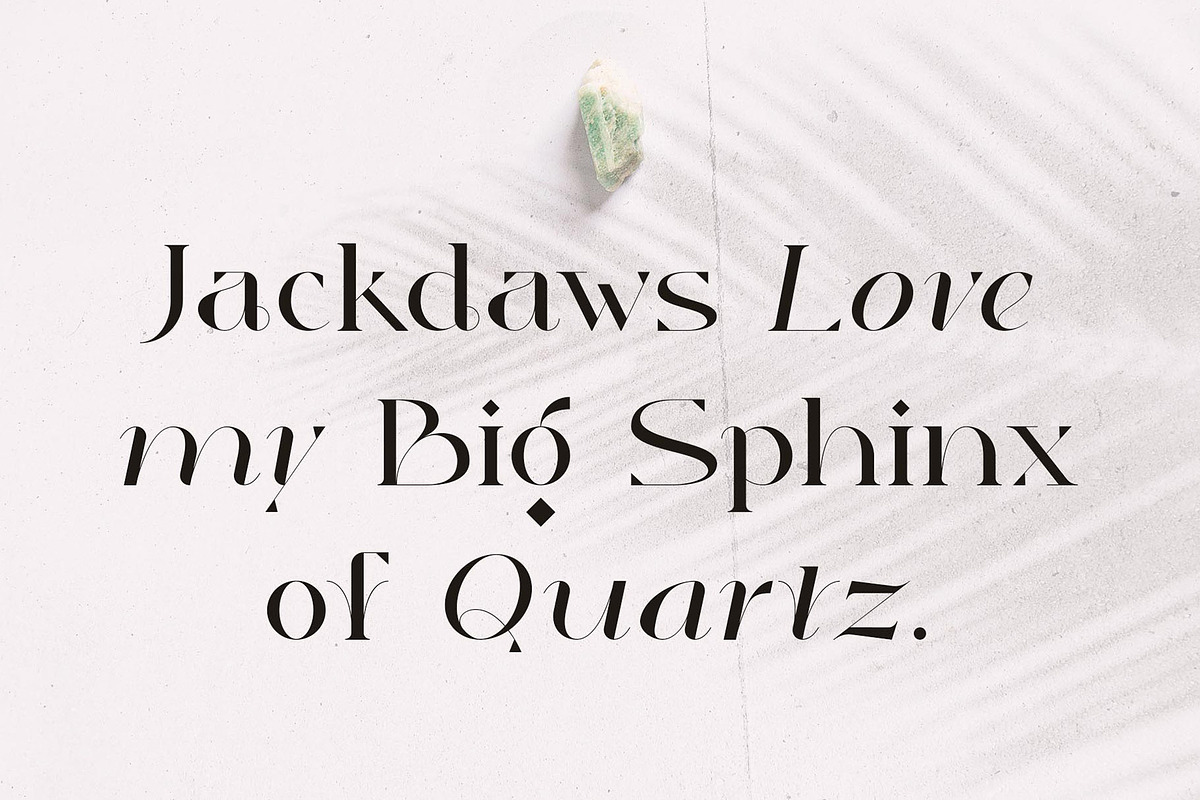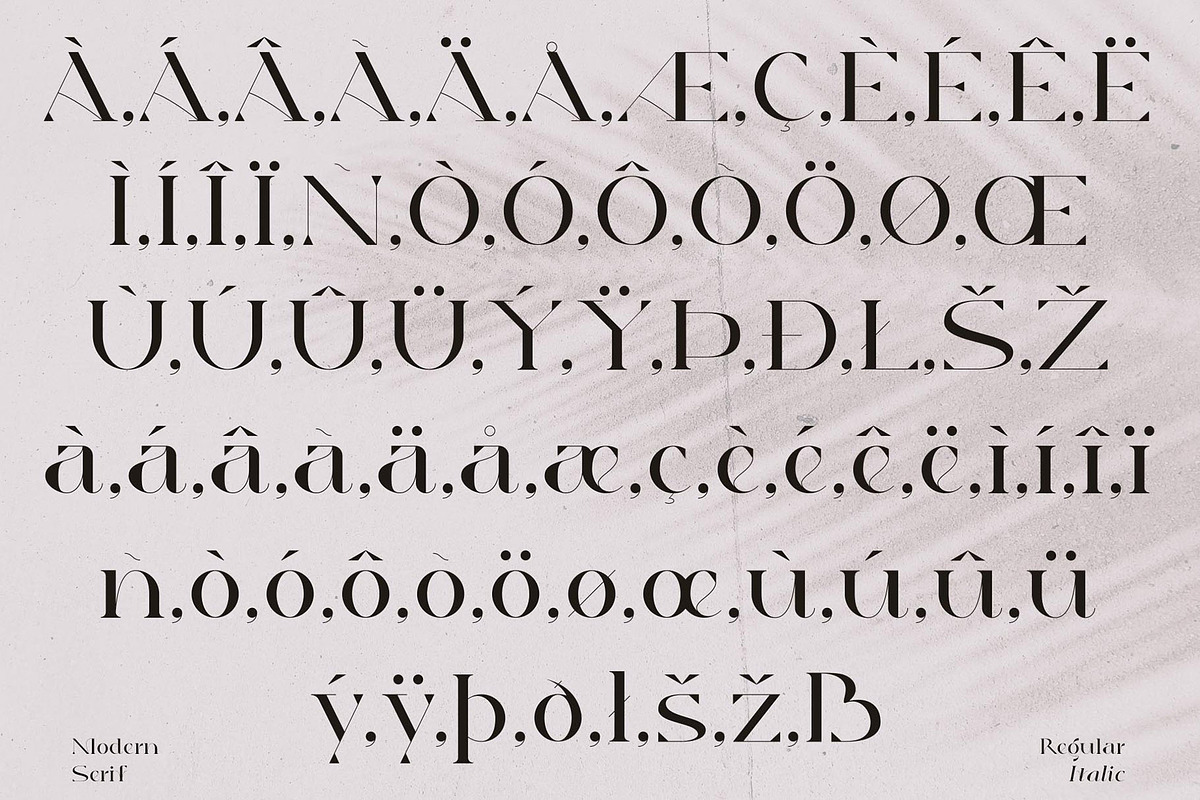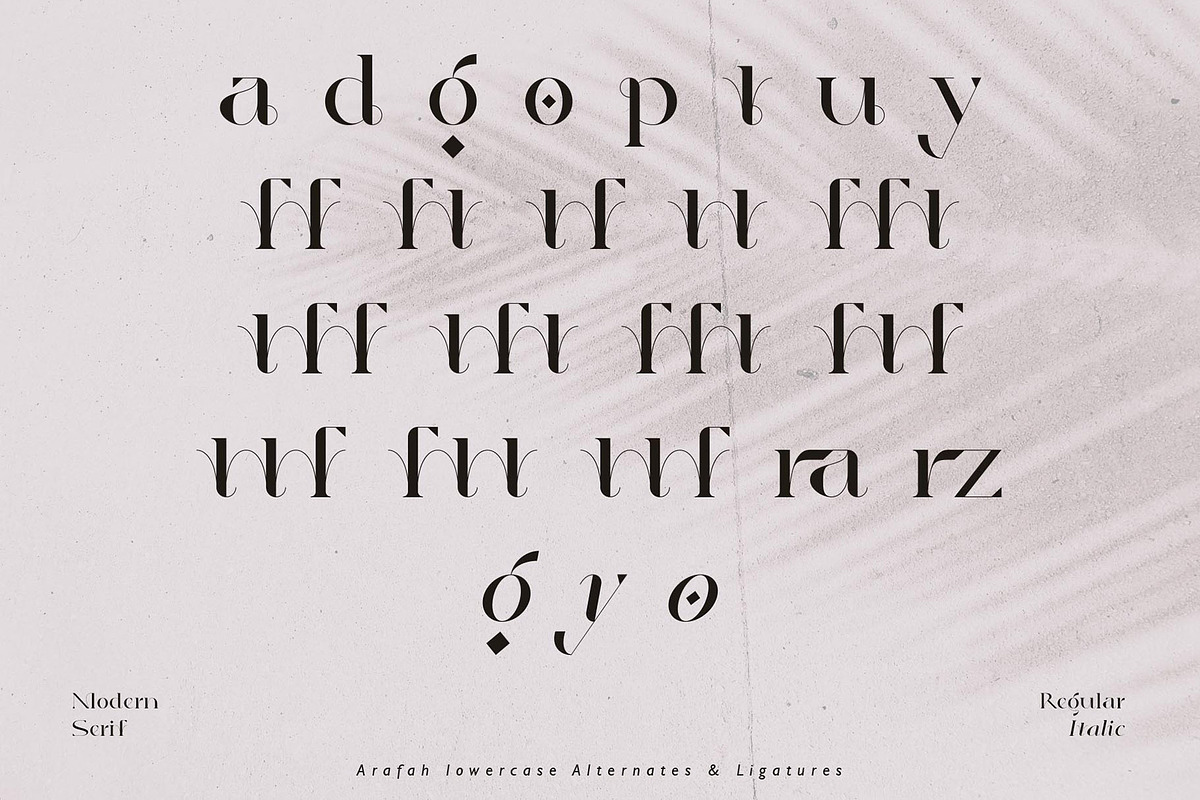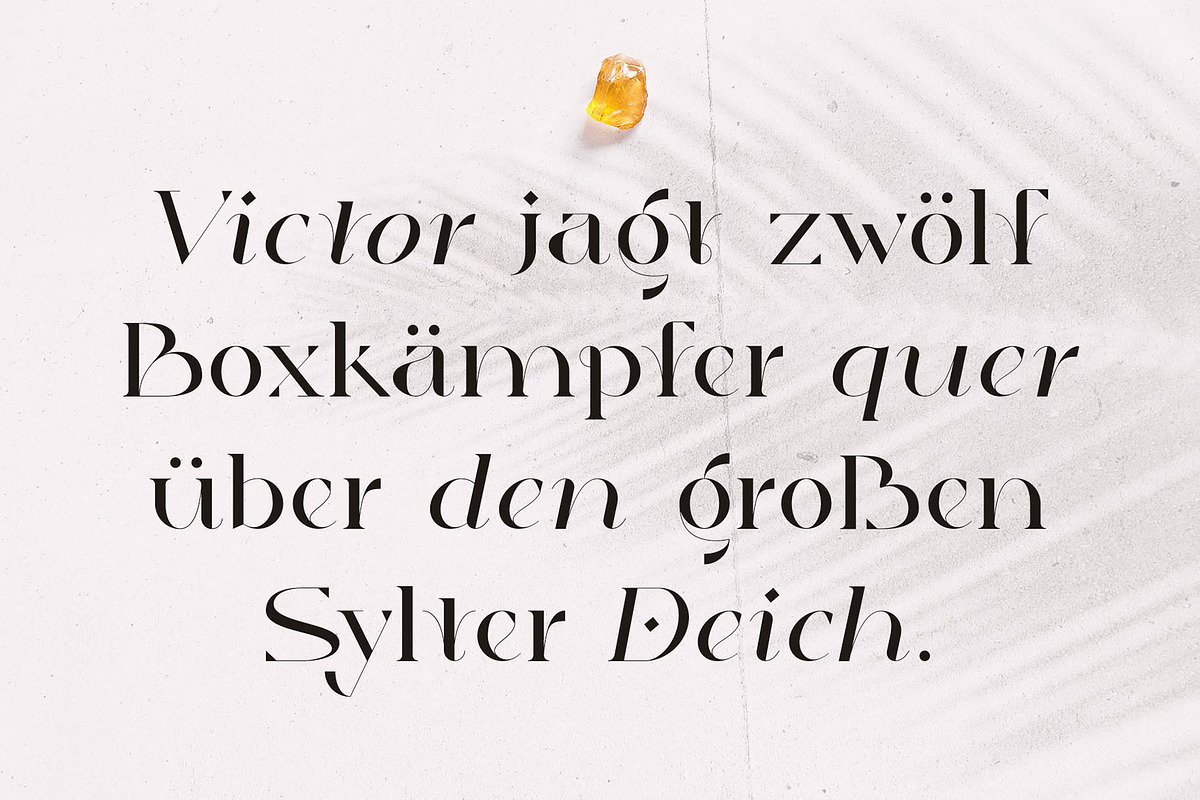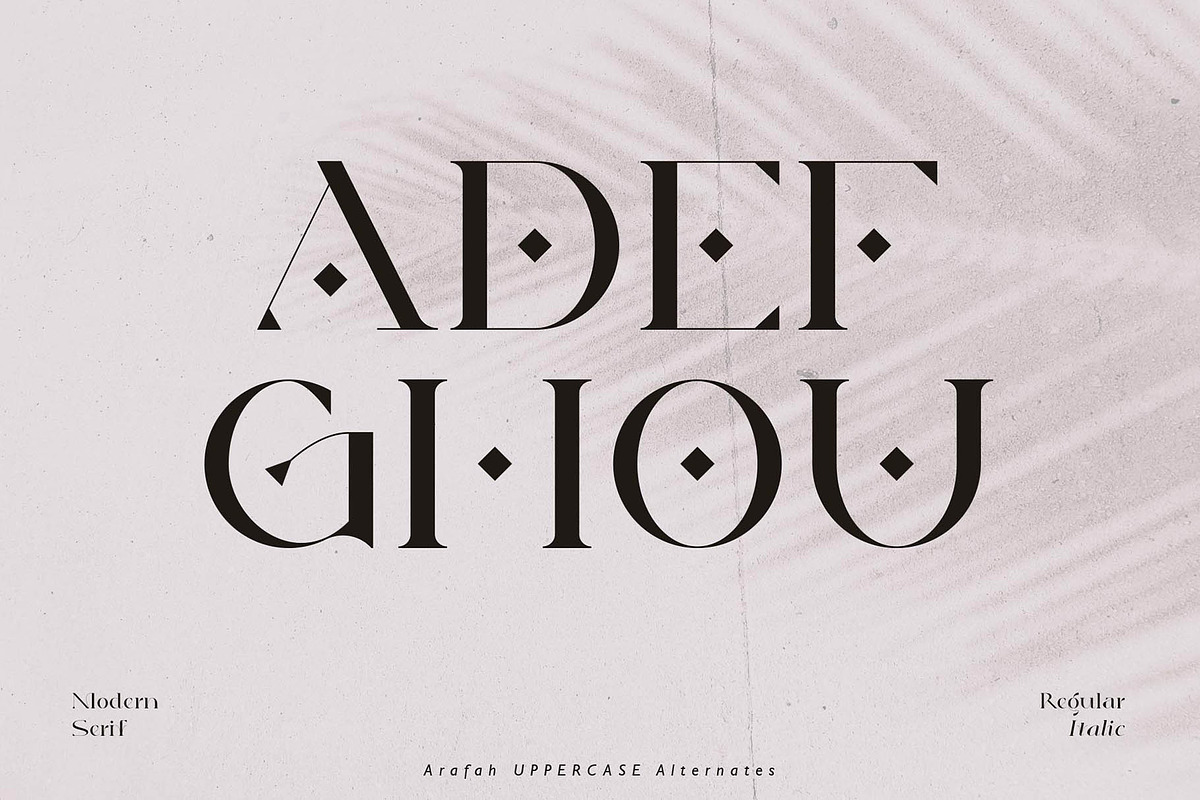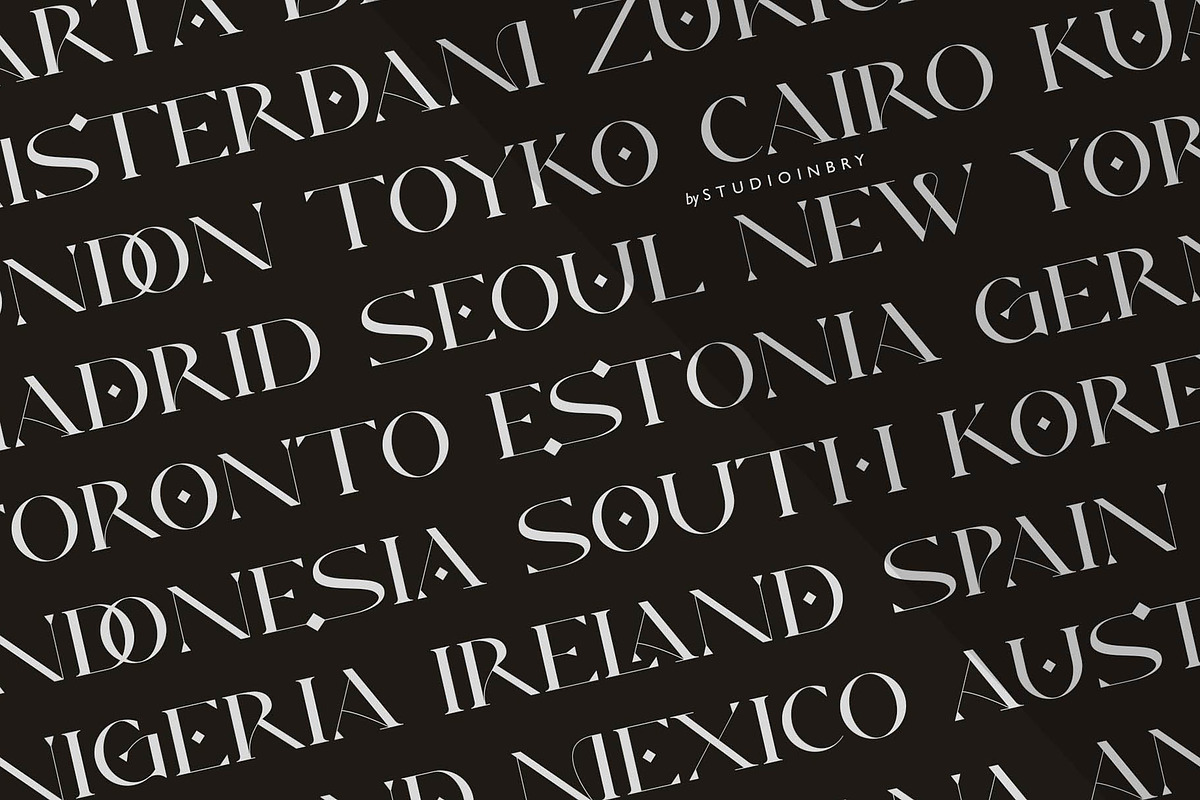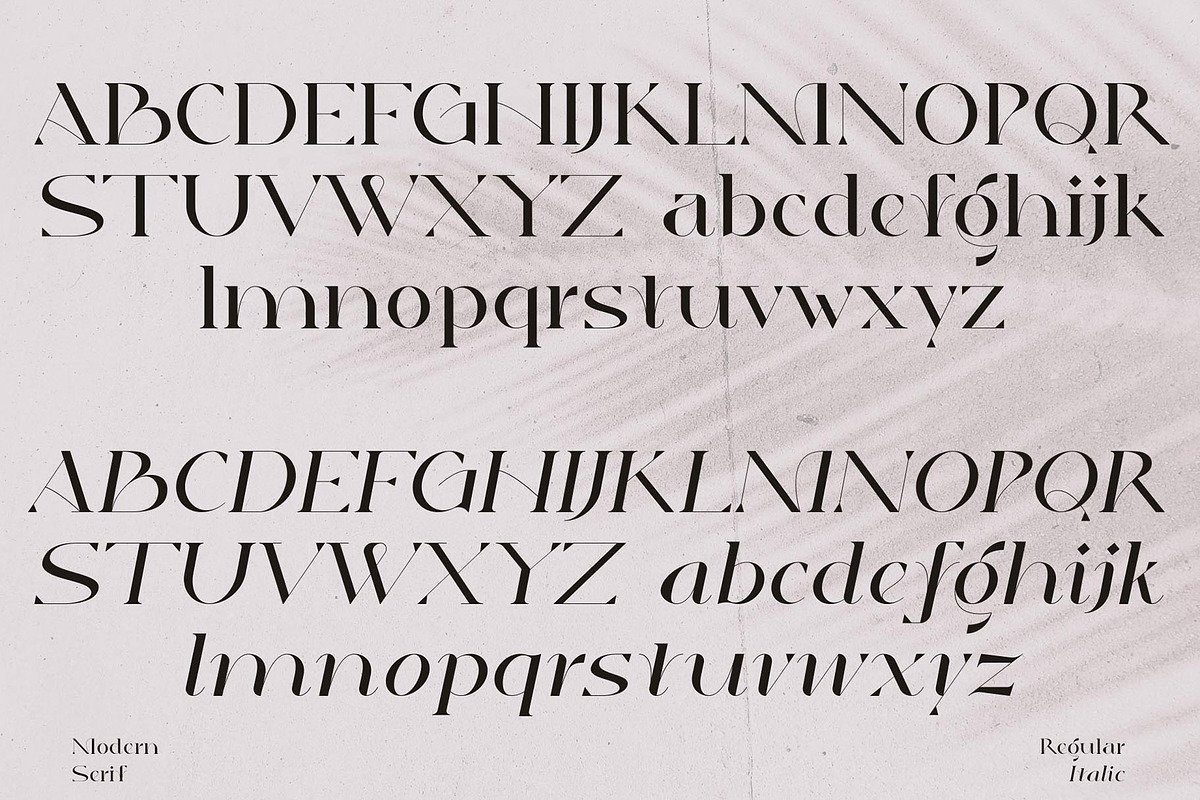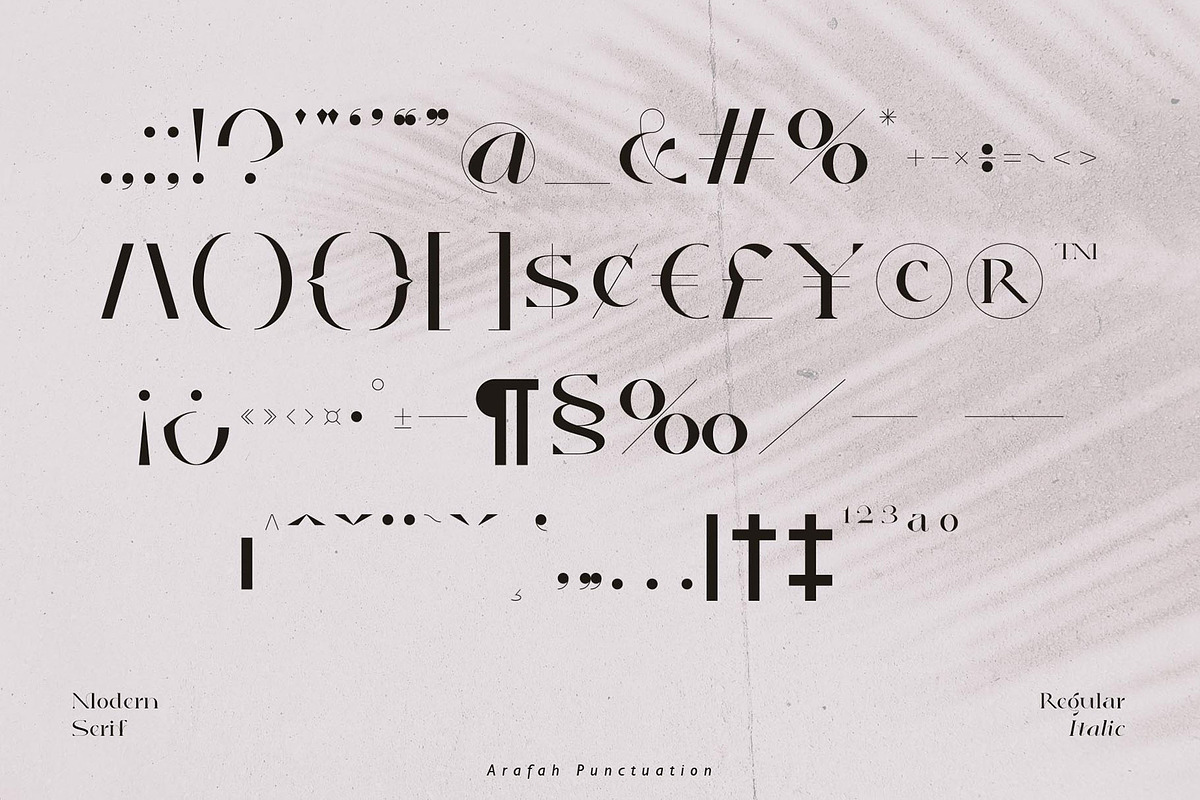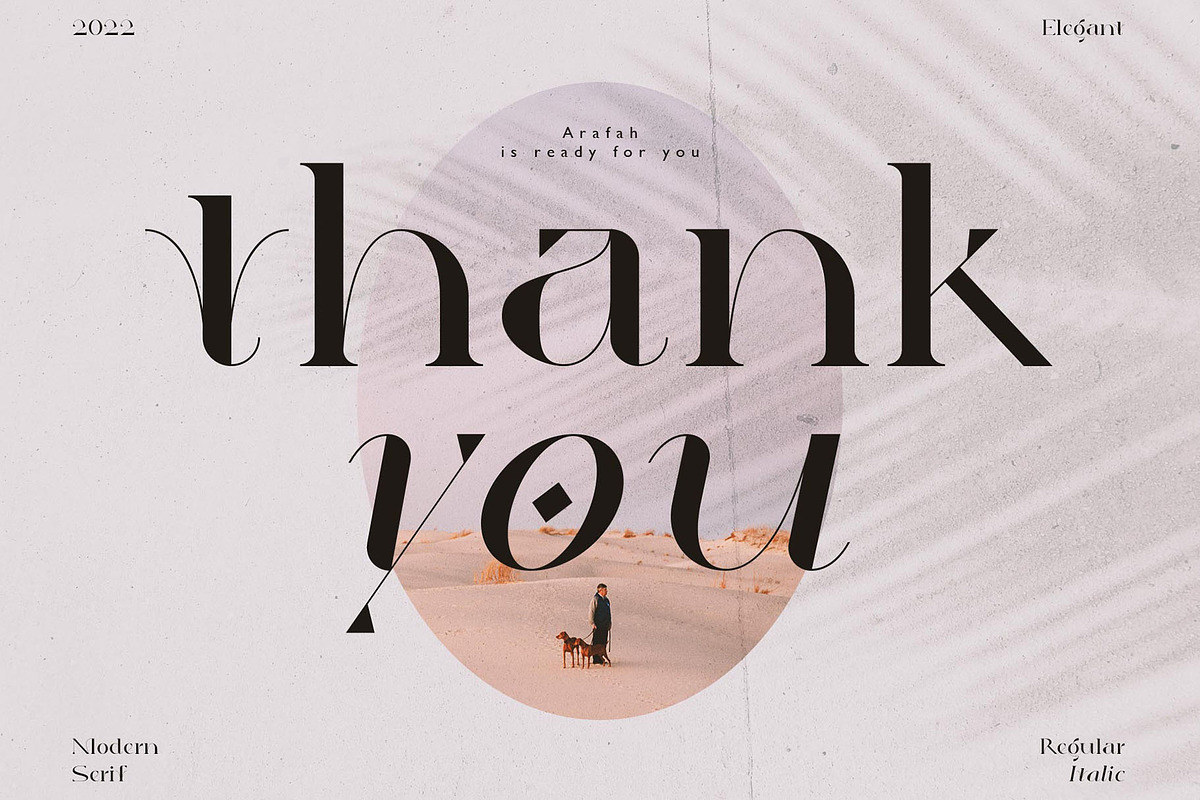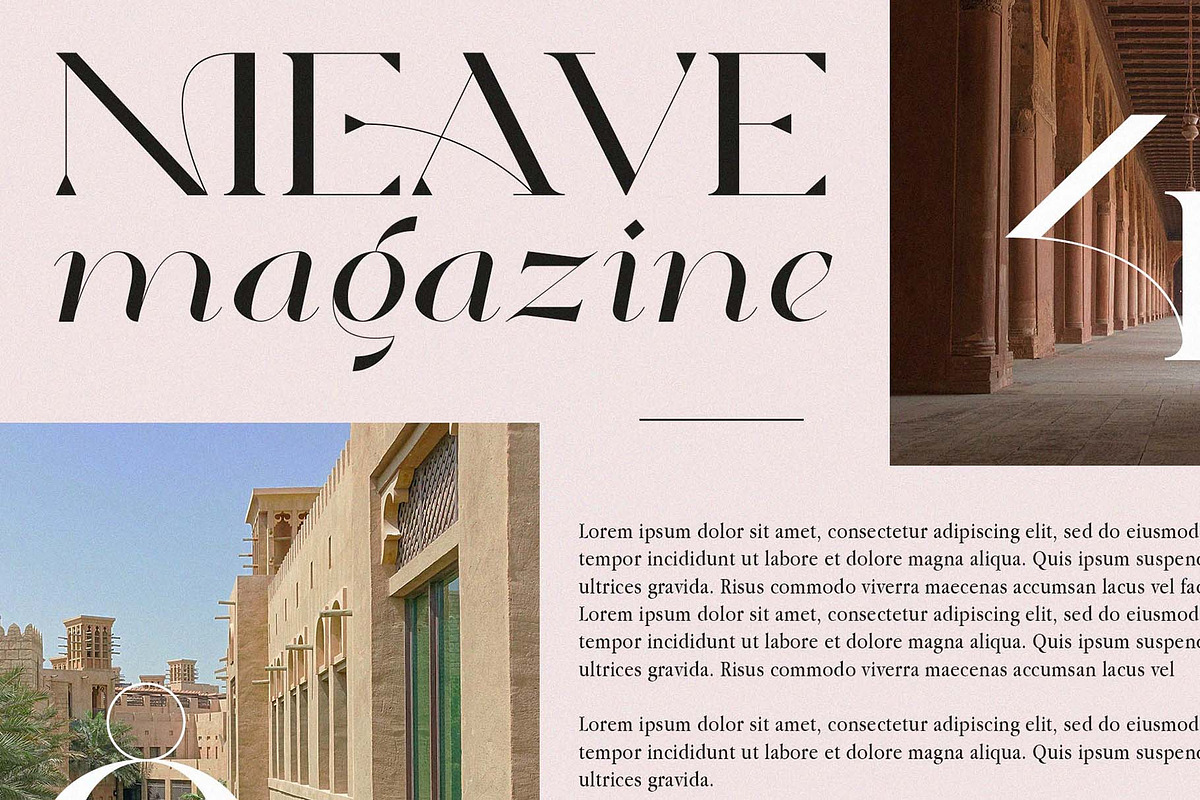
Arafah - Elegant & Modern Serif
Introducing Arafah. Modern Serif. Inspired by Arabic Culture's theme and mixing it with Luxury, Elegant, and Modern feels that makes the font has a unique personality in Serif.
UPPERCASE, Lowercase, Numbers, Punctuation, Italic.
Opentype Features (Alternates & Ligatures).
Multilingual Support.
Elevate your designs with Arafah Typeface, a sophisticated serif display font. Crafted for high-end branding, editorial layouts, and luxury packaging, it delivers an effortless sense of class and exclusivity. What a Beauty!